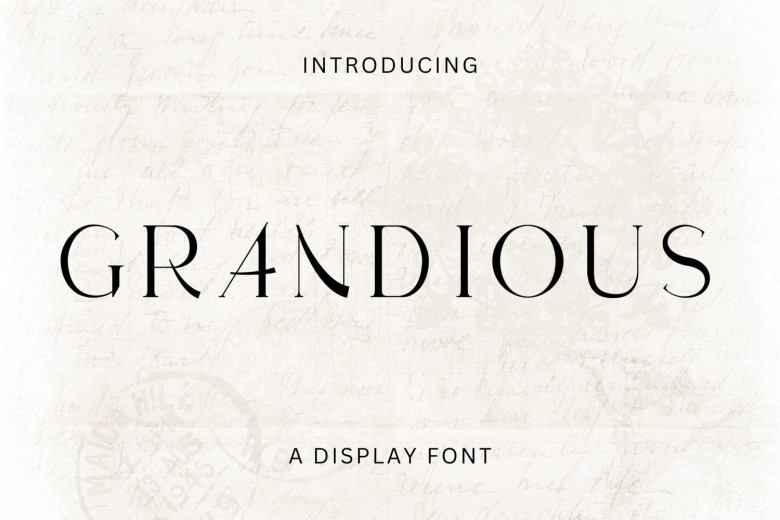
Grandious Font
Grandious is a serif of timeless grace that is elegant and bold. As well as a fiercely bold sight in headlines and logos, Grandious is a display serif that epitomizes pure joy. At the same time, a versatile font that can spice up any project, big or small, with flair and a touch of guile thanks to its clean lines.
Grandious Serif Font